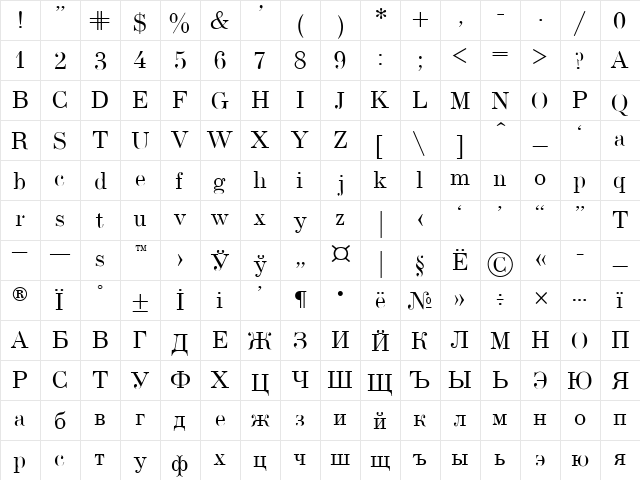
Usual New Plain Font Preview
Usual New Plain
Design Context for Usual New Typeface
Usual New is a composed and adaptable typeface that performs quietly and consistently across a wide range of design contexts.
Pro Tip: Pair Usual New with a font of contrasting weight or personality to build a more expressive typographic hierarchy.